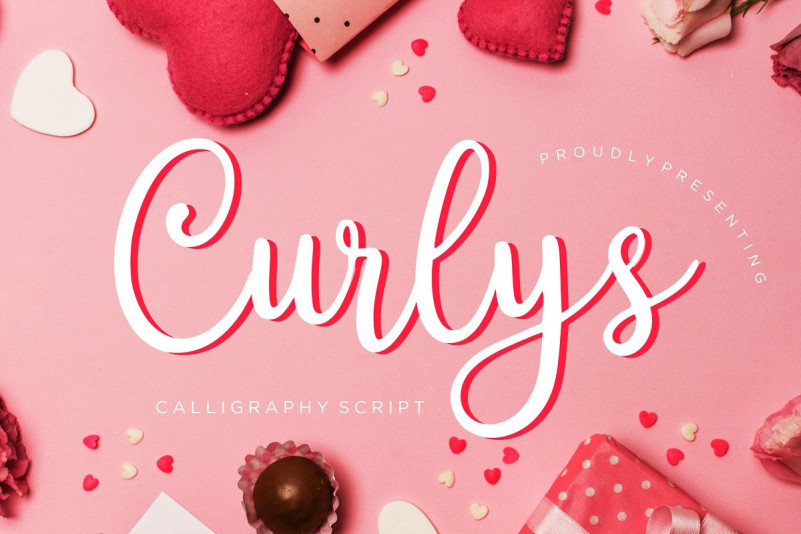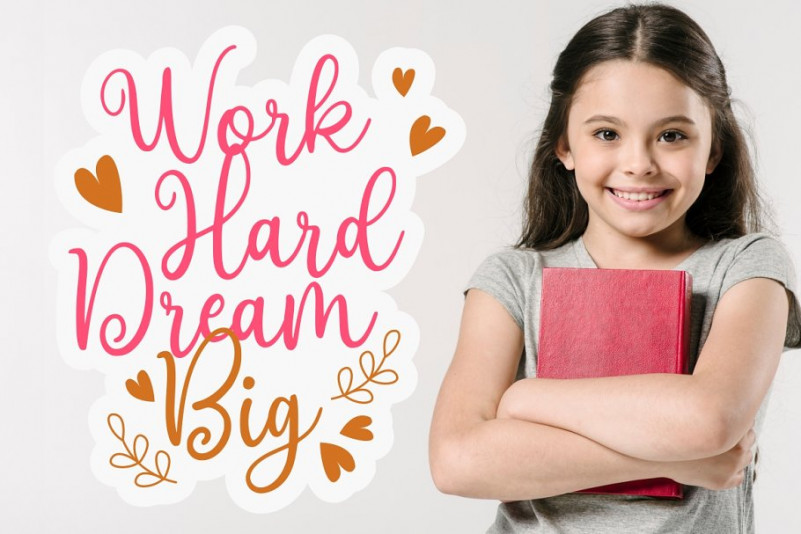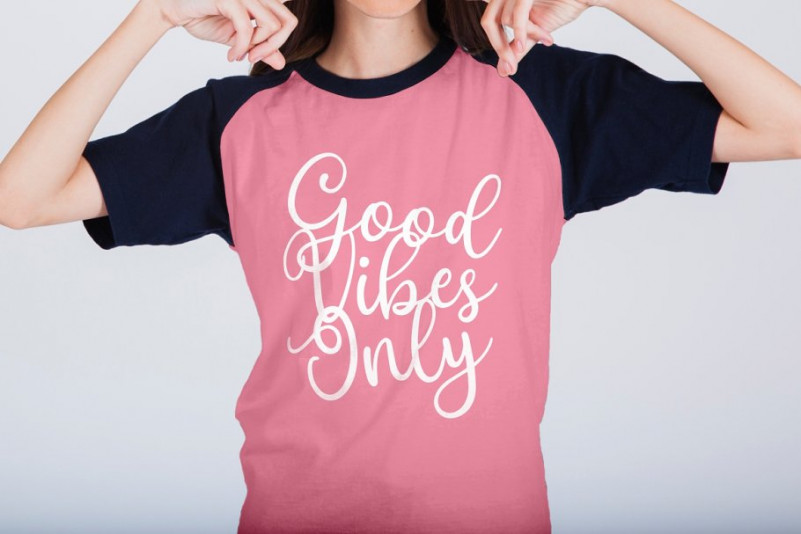
Curlys is calligraphy moder script font which feminine and classy style.
Curlys is perfect for branding projects, logo, wedding designs, social media posts, advertisements, product packaging, product designs, label, photography, watermark, invitation, stationery and any projects that need handwriting taste.